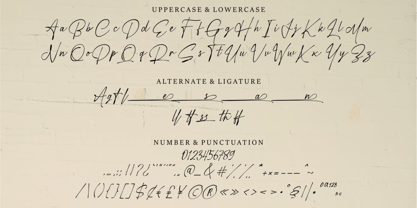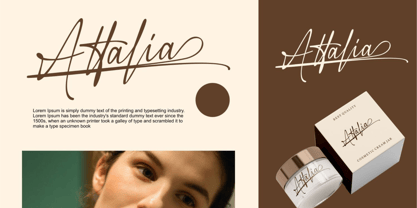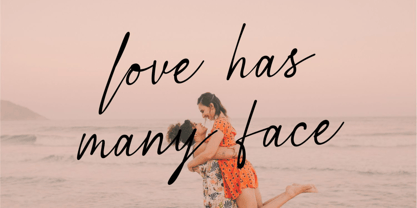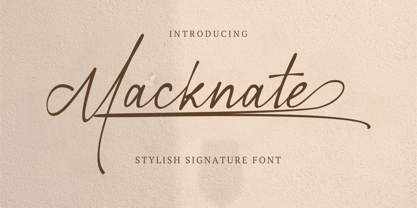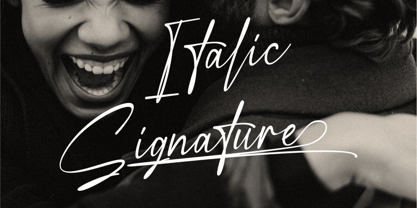
Macknate
Macknate is a stylish Signature Script Font crafted with elegance and fluidity, designed by HardType. It captures the natural motion of handwriting with refined curves and balanced strokes, making it ideal for logos, branding, invitations, and high end packaging. Macknate blends modern sophistication with timeless charm perfect for designers who want to leave a memorable impression.